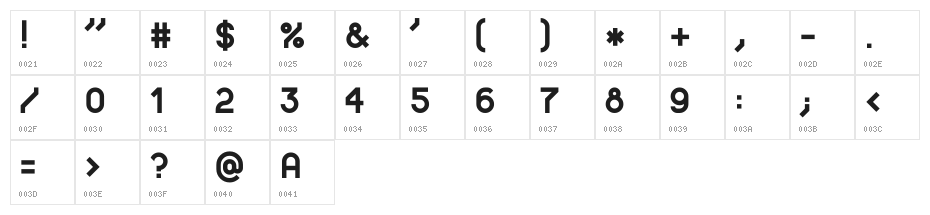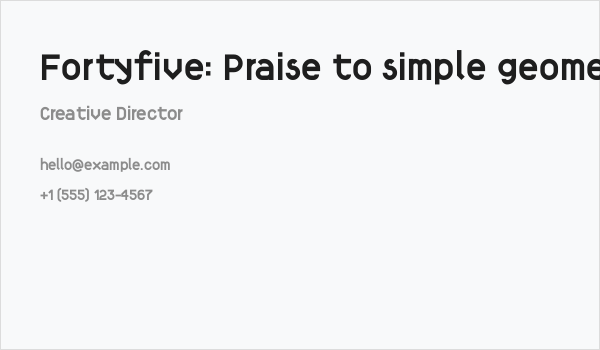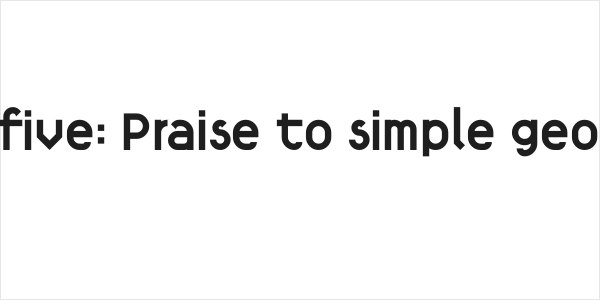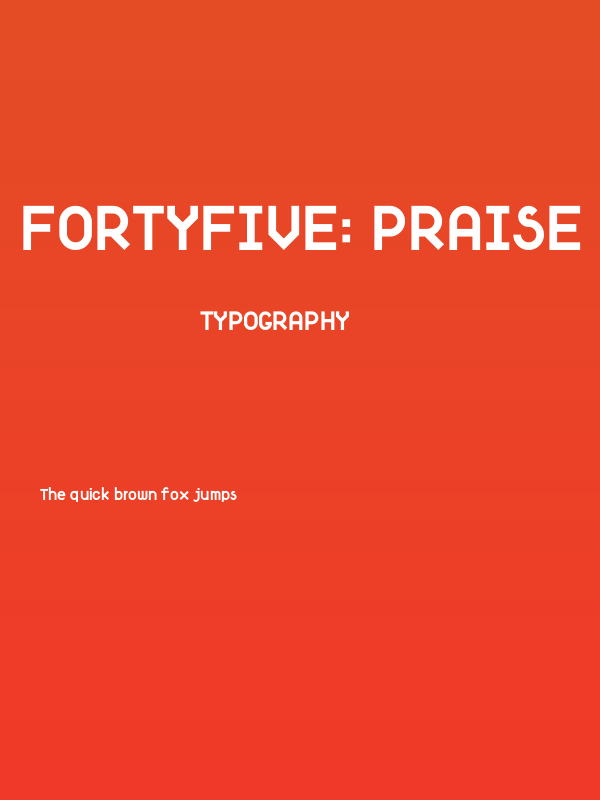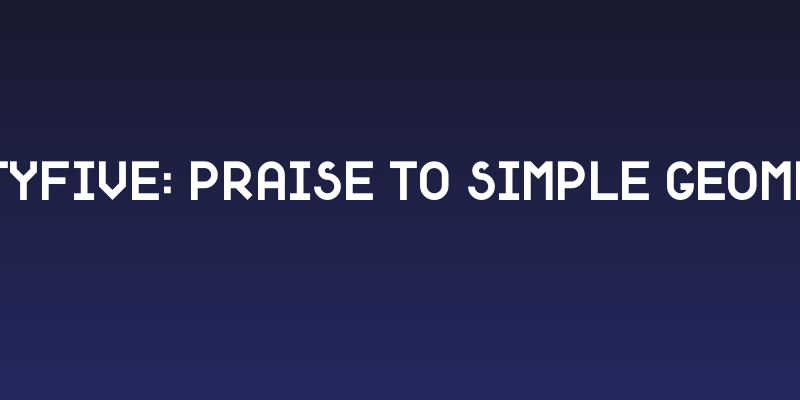
Fortyfive: Praise to simple geometry Font
Fortyfive: Praise to simple geometry Description
This font features a bold and geometric design, characterized by clean lines and a modern aesthetic. The uppercase letters are uniform in height, with a consistent stroke width that gives a strong and stable appearance. The lowercase letters maintain the geometric theme, with rounded edges that add a touch of softness to the overall look. The numerals are clear and easy to read, making them suitable for various applications. Special characters are well-integrated, maintaining the font's cohesive style. This font's simplicity and clarity make it versatile for a range of design projects.
| Proposed Projects | Ideal for branding, headlines, posters, and digital interfaces where clarity and modernity are key. |